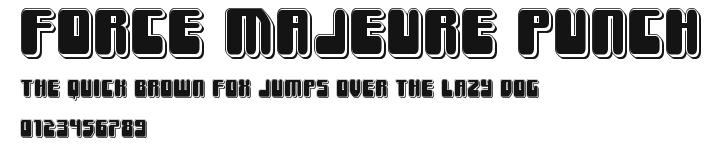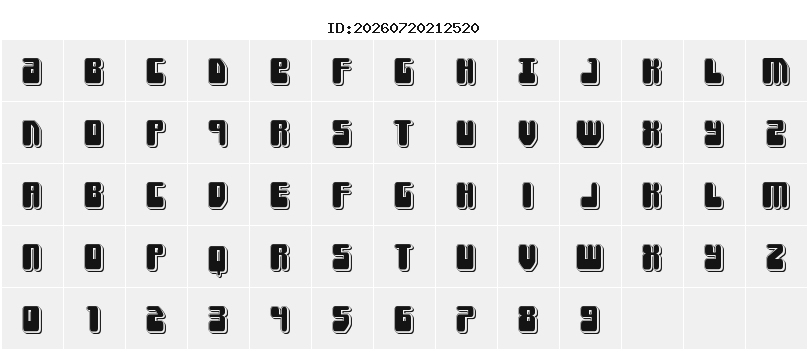
• Font Name: Force Majeure Punch
• Full Font Name: Force Majeure Punch
About Force Majeure Punch.ttf
Force Majeure Punch.ttf is a modern, elegant sans-serif font designed for ultimate readability and visual harmony. Perfect for branding, headlines, web design, and print materials.